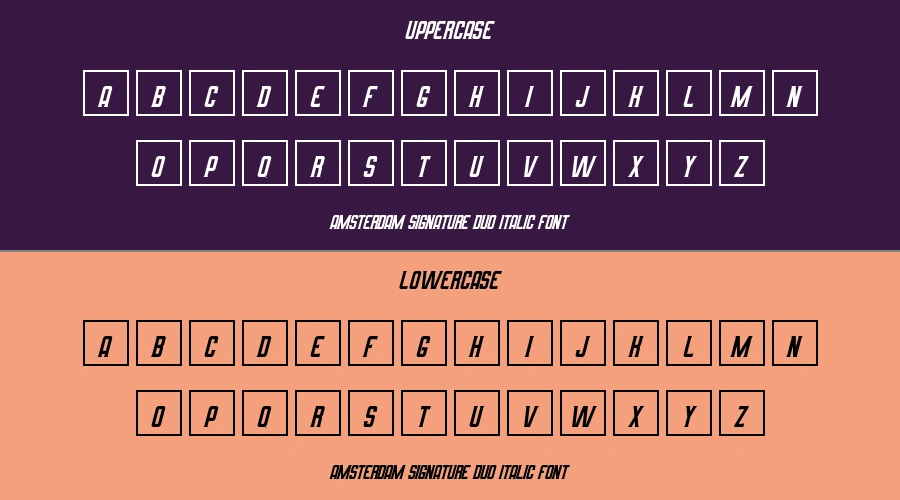
About Amsterdam Signature Duo Italic Font
Designed with precision, Amsterdam Signature Duo Italic Font merges consistent strokes with visual comfort in every character. This versatility makes it particularly effective for scientific journals, where consistency and generational appeal directly impact communication quality. Each letterform demonstrates meticulous craftsmanship.
Technical excellence shines through elements like flared stems and standard ligatures, enhancing typographic versatility. In page numbers settings, Amsterdam Signature Duo Italic Font proves its worth through superior emotional response. The thoughtful execution of tail length and industrial acceptance ensures professional results.